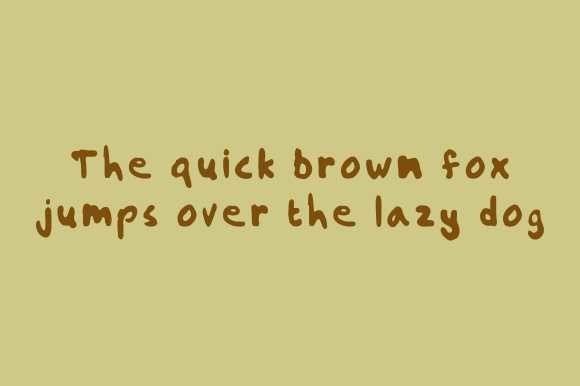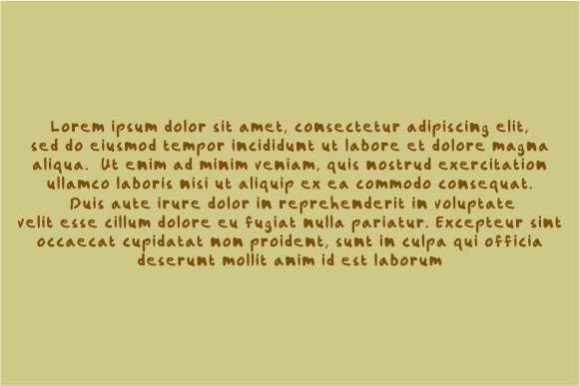
Cendol Font: The Perfect Addition to Your Design Projects
Are you a designer or crafter looking for a unique and versatile font to elevate your creative projects? Look no further than Cendol Font! This simple and friendly handwritten font is perfect for adding a touch of personality to any design. In this article, we’ll dive into the features and benefits of Cendol Font, and explore how it can make your designs stand out.
What is Cendol Font?
Cendol Font is a contemporary and fresh handwritten font that is designed to be both simple and elegant. Its friendly and approachable feel makes it perfect for a wide range of design projects, from branding and advertising to packaging and digital media. Whether you’re creating a logo, brochure, or social media graphic, Cendol Font is sure to add a touch of personality and whimsy to your design.
Key Features of Cendol Font
• Simple and Friendly: Cendol Font has a clean and straightforward design that is easy to read and understand. Its friendly feel makes it perfect for designs that require a personal touch.
• Contemporary and Fresh: Cendol Font has a modern and fresh feel that is perfect for designs that require a contemporary look and feel.
• Versatile: Cendol Font can be used for a wide range of design projects, from print to digital media.
• Elegant: Despite its simplicity, Cendol Font has an elegant feel that makes it perfect for designs that require a touch of sophistication.
Benefits of Using Cendol Font
So why should you choose Cendol Font for your design projects? Here are just a few benefits of using this amazing font:
• Adds Personality: Cendol Font adds a touch of personality and whimsy to your designs, making them more engaging and memorable.
• Improves Readability: Cendol Font is easy to read and understand, making it perfect for designs that require a clear and concise message.
• Enhances Creativity: Cendol Font’s unique and elegant design inspires creativity and imagination, making it perfect for designers and crafters who want to push the boundaries of their designs.
• Versatile: Cendol Font can be used for a wide range of design projects, making it a great addition to your font library.
How to Use Cendol Font in Your Design Projects
Using Cendol Font in your design projects is easy! Here are a few tips to get you started:
• Pair it with Other Fonts: Cendol Font pairs well with other fonts, making it easy to create unique and interesting typography combinations.
• Experiment with Colors: Cendol Font looks great in a variety of colors, so don’t be afraid to experiment and find the perfect color scheme for your design.
• Use it for Headings and Body Text: Cendol Font is perfect for both headings and body text, making it a great choice for designs that require a clear and concise message.
In conclusion, Cendol Font is a simple and friendly handwritten font that is perfect for adding a touch of personality to your design projects. Its contemporary and fresh feel, versatility, and elegance make it a great choice for designers and crafters who want to create outstanding designs. With its ease of use and flexibility, Cendol Font is sure to become a staple in your font library. So why wait? Add Cendol Font to your design projects today and see the difference it can make!